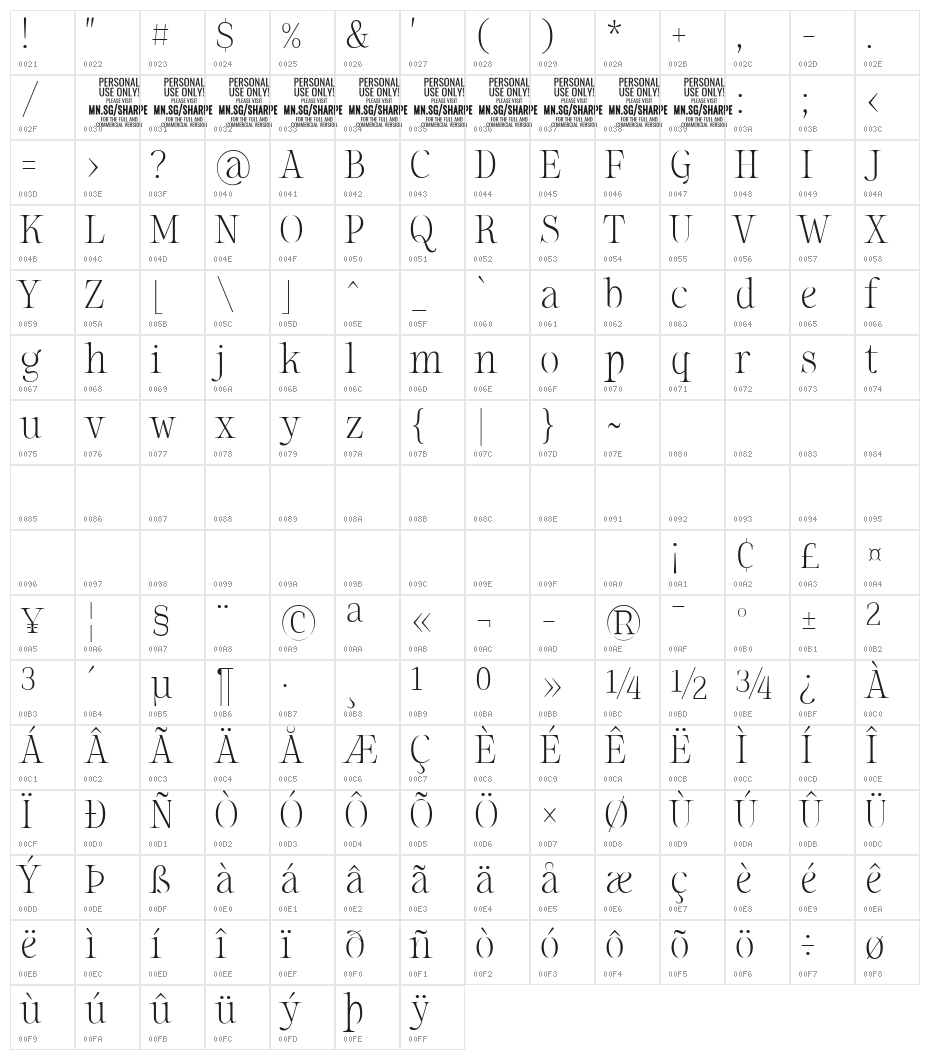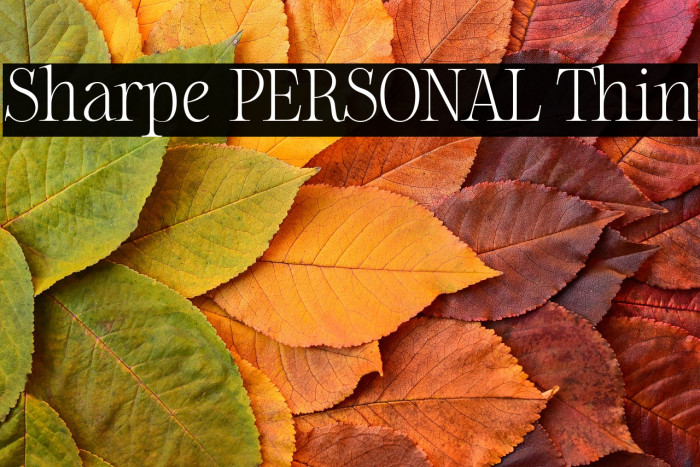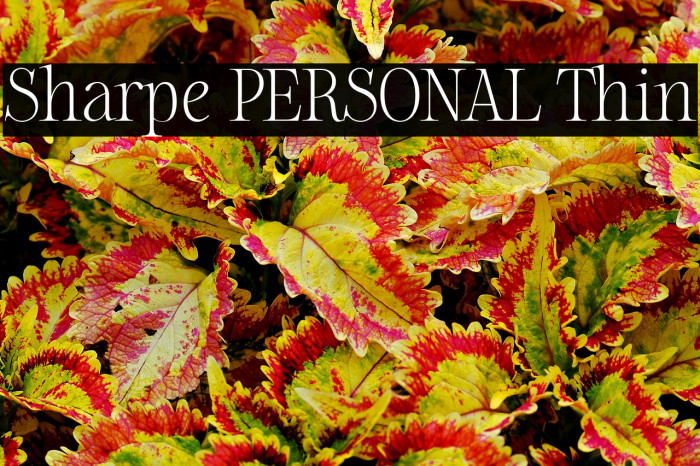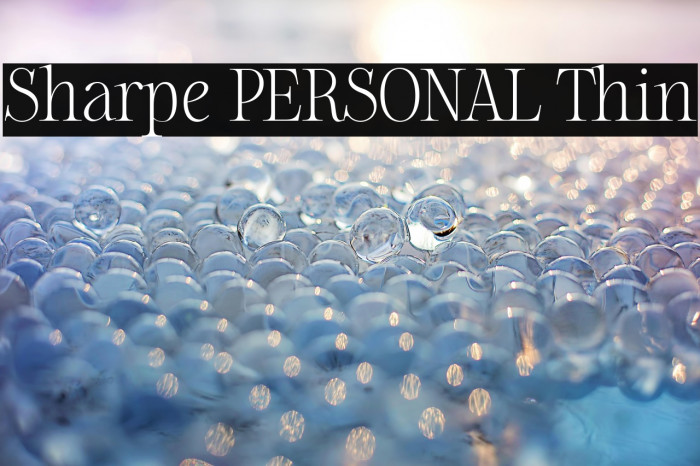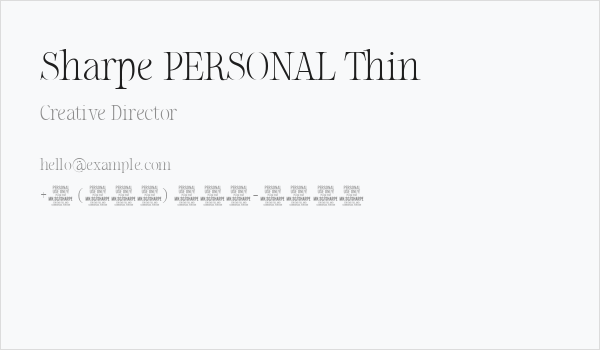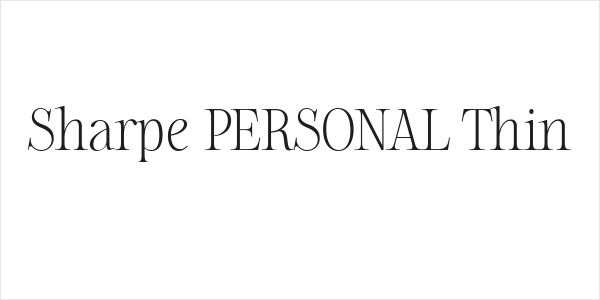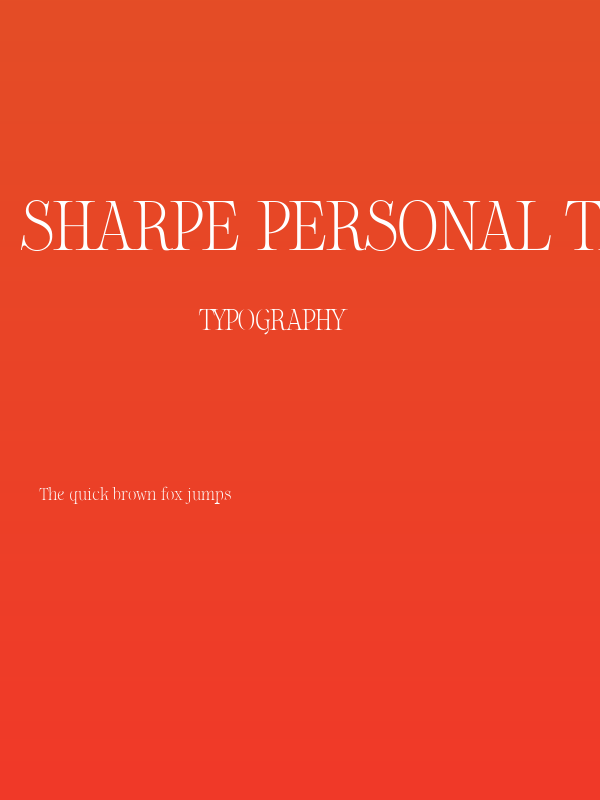
Sharpe PERSONAL Thin Font
Sharpe PERSONAL Thin Description
This font features a refined and elegant serif style with thin, elongated strokes that convey a sense of sophistication and modernity. The uppercase letters are tall and stately, while the lowercase letters maintain a consistent flow with gentle curves and sharp serifs. The numerals are clear and distinct, complementing the overall aesthetic. Special characters are crafted with precision, adding to the font's versatility. The thin weight of the strokes gives it a delicate appearance, making it suitable for high-end branding and editorial design.
| Proposed Projects | Ideal for luxury branding, editorial layouts, wedding invitations, and high-end product packaging. |